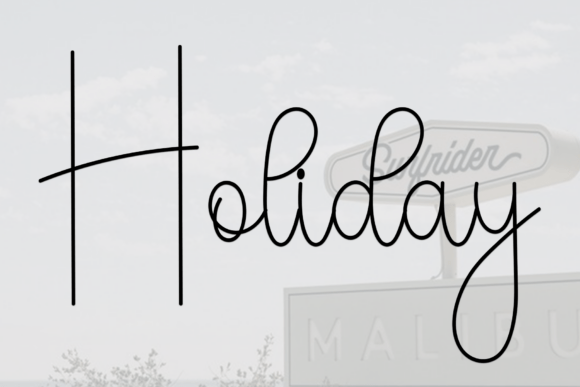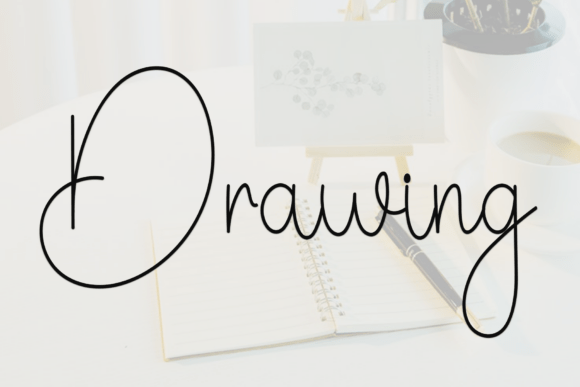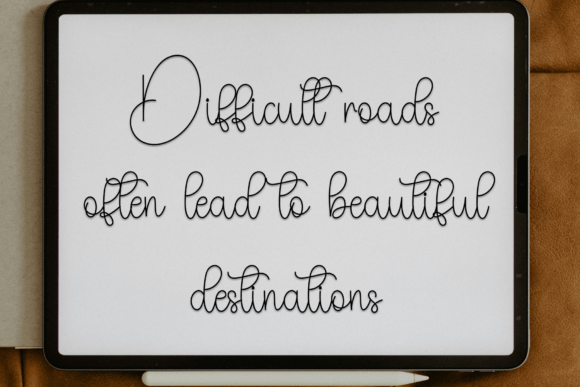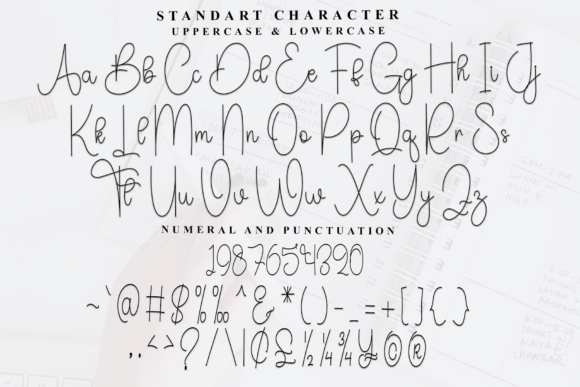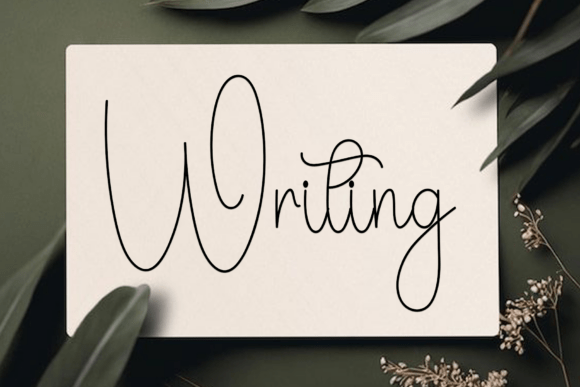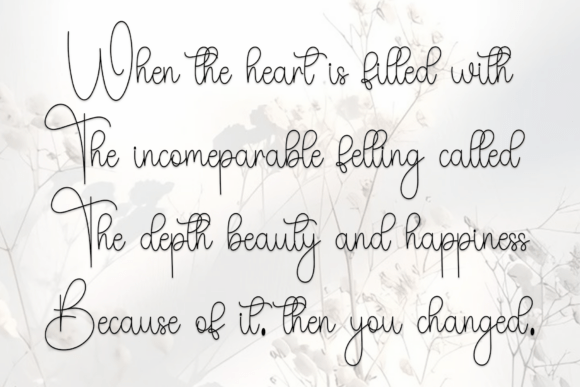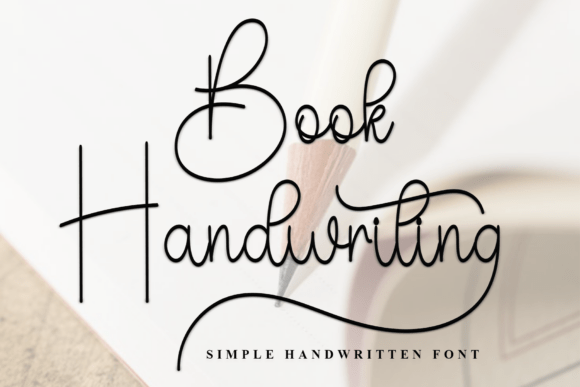
The Warmth of Book Handwriting Font: A Designer’s New Best Friend
I still remember the time I was working on a project for a client’s birthday party invitation. I had all the design elements in place – the colors, images, and layout – but something was missing. The font I was using felt too formal, too stiff. It didn’t capture the playful, celebratory vibe I was going for. That’s when I stumbled upon Book Handwriting Font, and it was love at first sight! 💕
Book Handwriting is a casual and creative font that exudes warmth and friendliness. Its round, playful strokes create a relaxed and approachable feel, perfect for personal projects, invitations, and social media graphics. The font’s charming, hand-drawn aesthetic adds a fun and unique touch to any design.
- ✨ The font’s warmth and friendliness make it perfect for designs that need a personal touch.
- ✅ The round, playful strokes create a relaxed and approachable feel.
- 🎉 It’s perfect for personal projects, invitations, and social media graphics.
While Book Handwriting Font is an amazing font, there are a few things to keep in mind:
- ⚠️ The font may not be suitable for very formal or professional designs, as it has a more casual feel.
- 🤔 Some users may find the font a bit too playful or childish for certain projects.
The Designer Inspiration Behind Book Handwriting Font
Book Handwriting Font was designed with the intention of creating a font that feels like a warm hug. The designer wanted to create a font that captures the feeling of handwritten notes and personal letters. The result is a font that’s perfect for designs that need a personal touch.
Q: What is Book Handwriting Font?
A: Book Handwriting Font is a casual and creative font that exudes warmth and friendliness.
Q: Is Book Handwriting Font suitable for professional designs?
A: While Book Handwriting Font is a beautiful font, it may not be suitable for very formal or professional designs, as it has a more casual feel.